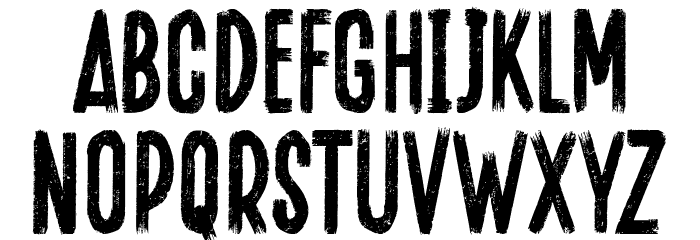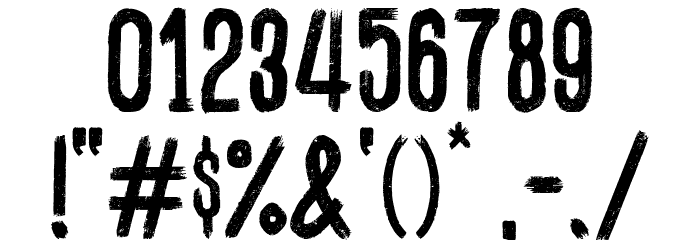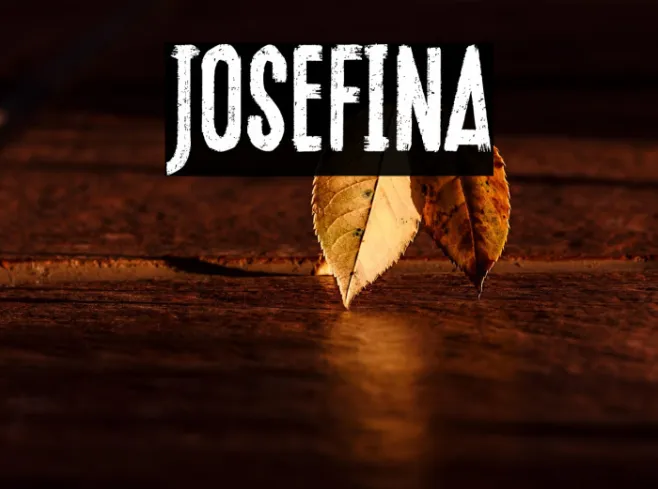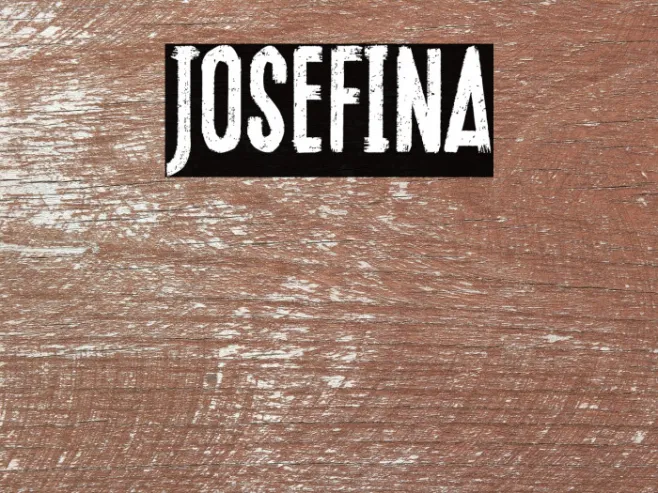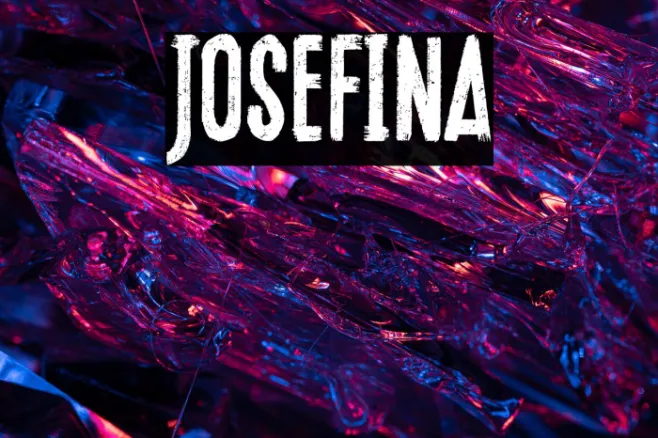
Josefina Font
This font features a bold and distressed style, characterized by its rough, textured appearance that mimics a hand-painted or stamped effect. The uppercase letters are tall and narrow, with slightly irregular edges that give it a rugged, vintage feel. The numbers and special characters maintain this distressed look, adding to the overall cohesive aesthetic. The font's unique style makes it stand out, perfect for projects that require a bold statement or an artistic touch.
A bold, distressed font with a hand-painted, vintage look.
- Proposed Projects: Ideal for posters, album covers, branding, and any design needing a bold, artistic touch.
- Overall Style: Vintage, Artistic